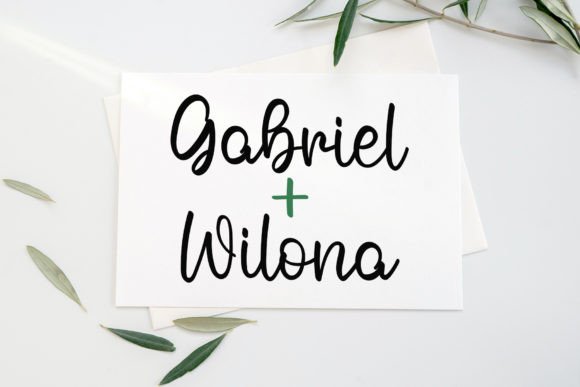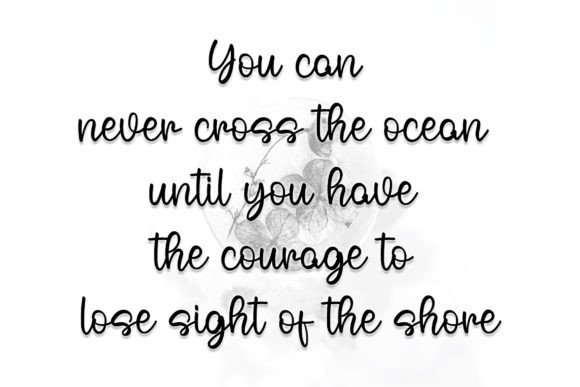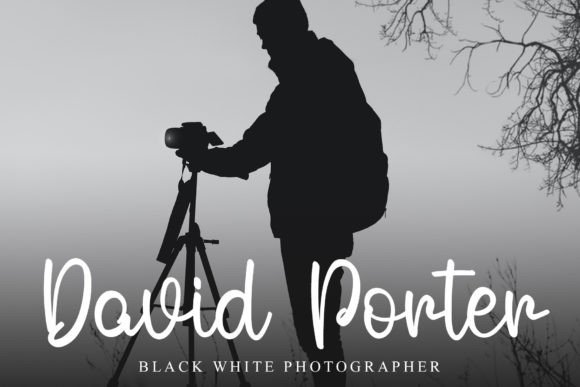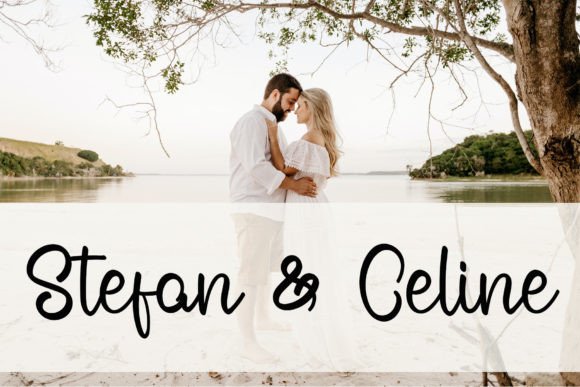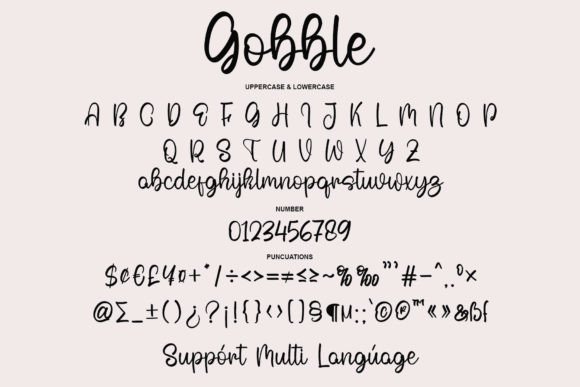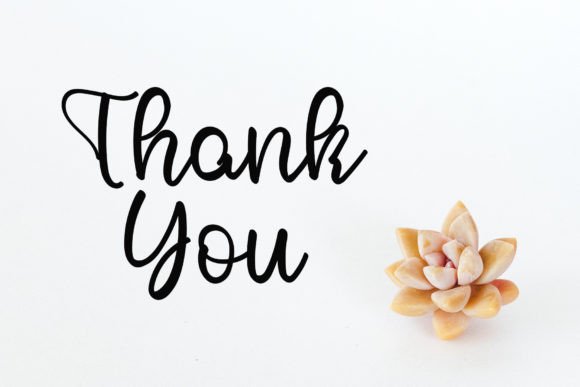
Gobble Font: Elevate Your Designs with Elegance and Sophistication
In the world of typography, a beautiful and refined handwritten font can make all the difference in creating stunning designs. Introducing Gobble Font, a classy and modern typeface that is perfect for a wide range of creative projects. From logos and branding to invitations, stationery, wedding designs, social media posts, and more, Gobble Font is the ideal choice for designers and crafters looking to add a touch of elegance and sophistication to their work.
What Makes Gobble Font Special?
Gobble Font is a meticulously crafted handwritten font that boasts a unique blend of classic and contemporary styles. Its refined and beautiful lettering makes it perfect for designs that require a high level of sophistication and poise. Whether you’re creating a logo, invitation, or social media post, Gobble Font is sure to impress your audience with its classy and modern aesthetic.
Key Features of Gobble Font
- Beautiful and Refined Handwritten Lettering: Gobble Font features exquisite handwritten lettering that is both elegant and refined.
- Classy and Modern Design: The font’s classy and modern design makes it perfect for a wide range of creative projects, from logos and branding to invitations and social media posts.
- Highly Versatile: Gobble Font is highly versatile and can be used for a variety of design projects, including logos, branding, invitations, stationery, wedding designs, social media posts, and more.
- Easily Readable: The font is easily readable, making it perfect for body text and captions.
Gobble Font is perfect for designers and crafters who are looking to add a touch of elegance and sophistication to their work. Whether you’re creating designs for personal or commercial use, Gobble Font is sure to impress your audience with its beautiful and refined handwritten lettering.
Use Cases for Gobble Font
- Logos and Branding: Use Gobble Font to create stunning logos and branding materials that exude elegance and sophistication.
- Invitations and Stationery: Add a touch of class to your invitations and stationery with Gobble Font’s beautiful handwritten lettering.
- Wedding Designs: Make your wedding designs truly special with Gobble Font’s elegant and refined typography.
- Social Media Posts: Elevate your social media posts with Gobble Font’s classy and modern aesthetic.
Tips for Using Gobble Font
- Experiment with Font Sizes: Experiment with different font sizes to create visual hierarchy and add emphasis to your designs.
- Pair with Other Fonts: Pair Gobble Font with other fonts to create a unique and visually appealing typography.
- Use for Headings and Titles: Use Gobble Font for headings and titles to add a touch of elegance and sophistication to your designs.
| Font Name | Gobble Font |
| Author | Bintang Studio |
In conclusion, Gobble Font is a beautiful and refined handwritten font that is perfect for designers and crafters looking to add a touch of elegance and sophistication to their work. With its classy and modern design, highly versatile nature, and easily readable lettering, Gobble Font is sure to impress your audience and elevate your designs to the next level.